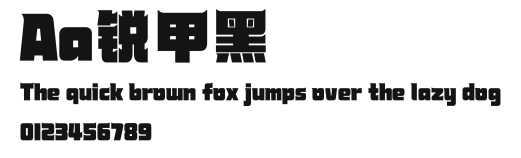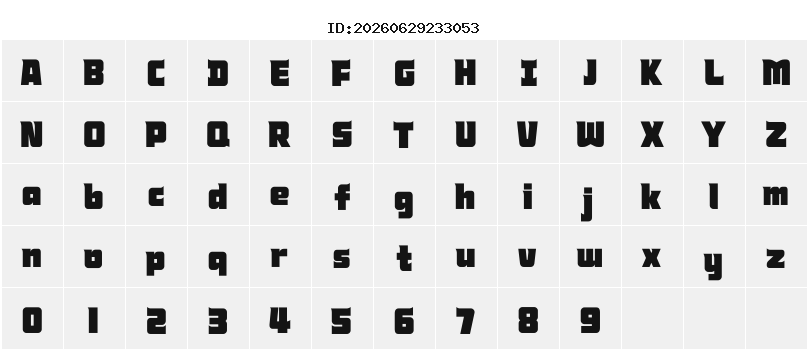
Aa锐甲黑 Preview
• Font Name: Aa锐甲黑
• Font Style: 常规
• Font ID: 1.000;Aa;AaRJH;2021
• Full Font Name: Aa锐甲黑
• PostScript Name: AaRJH
• Character Count: 8197
• Designer: Aa
• Manufacturer: 翰美互通(厦门)科技有限公司
• Description: AaRJH is a fantastic font with excellent features designed for user interfaces and electronic communications.
About Aa锐甲黑.ttf
Aa锐甲黑.ttf is a modern, elegant sans-serif font designed for ultimate readability and visual harmony. Perfect for branding, headlines, web design, and print materials.